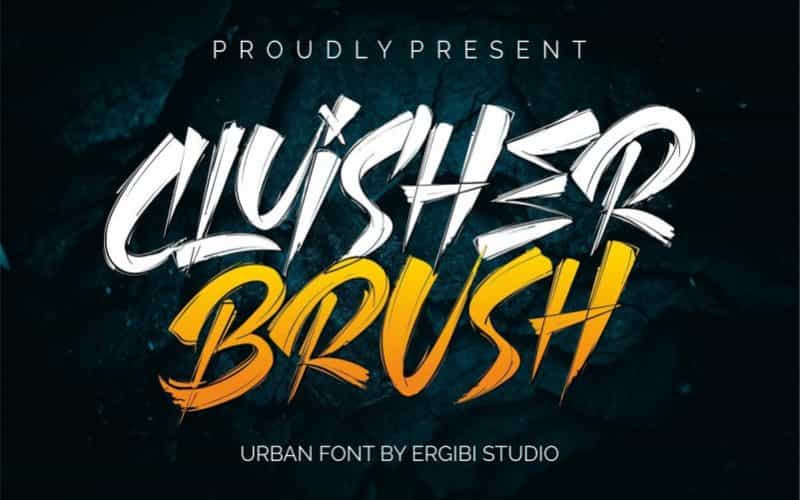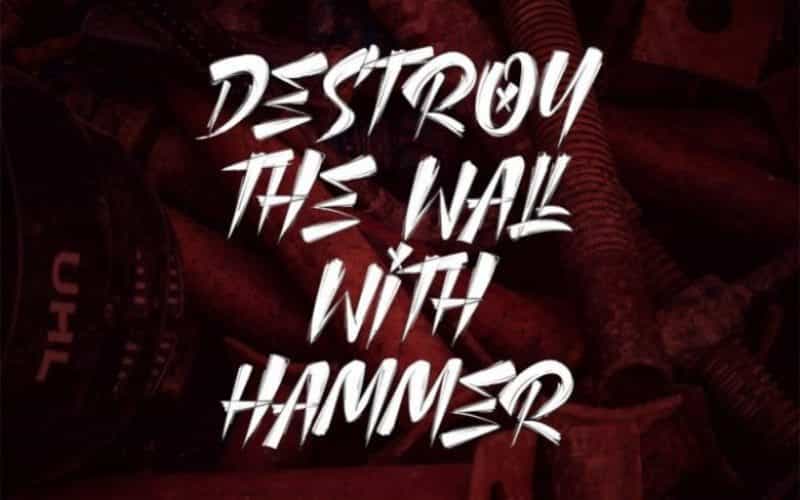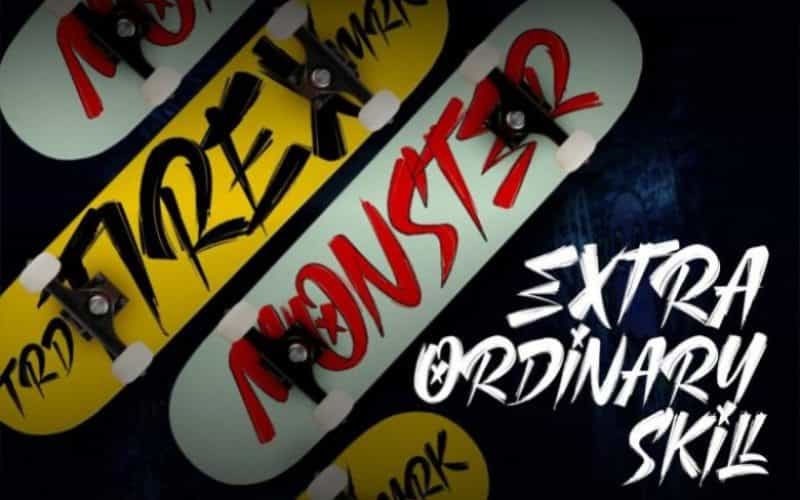
CLUISHER BRUSH is a brush type font combined with other fonts as the outline and you can change the color to make this font look better. CLUISHER is perfect for logos, apparel, T-shirt, Hoodie graffiti quotes product packaging or anything else that needs a typographic turbo-boost.